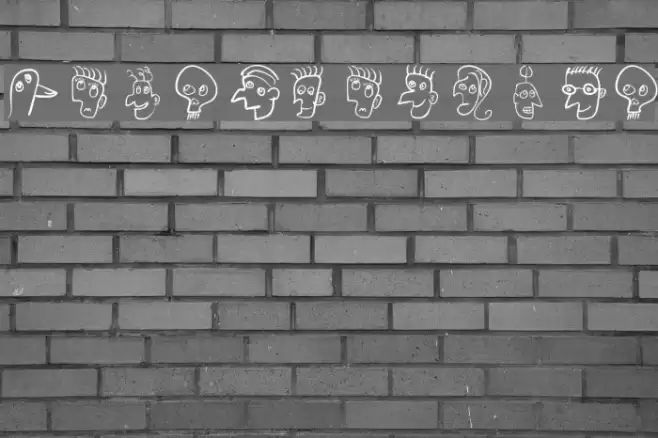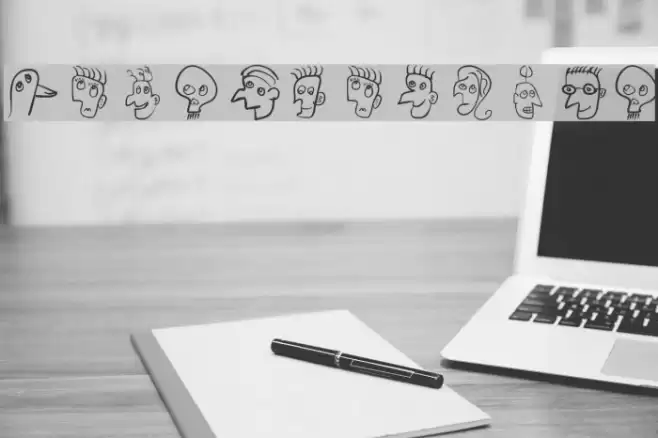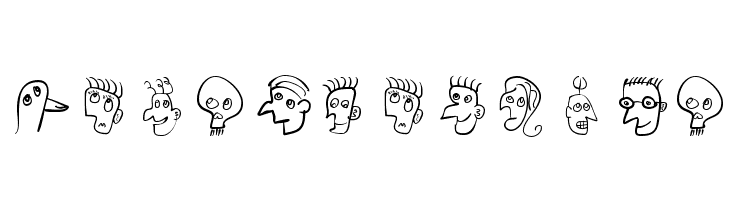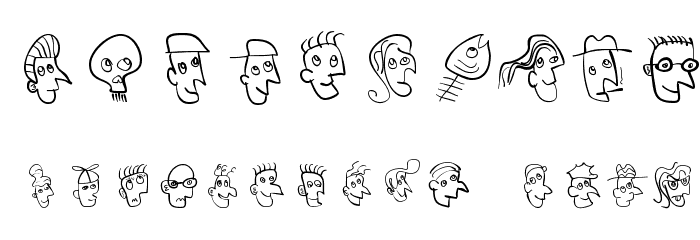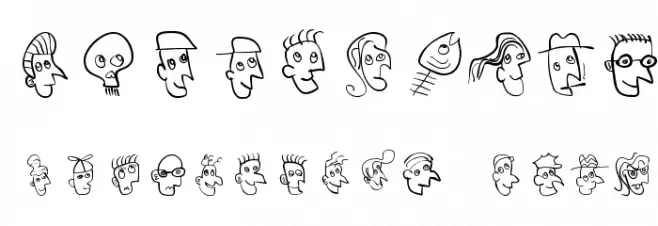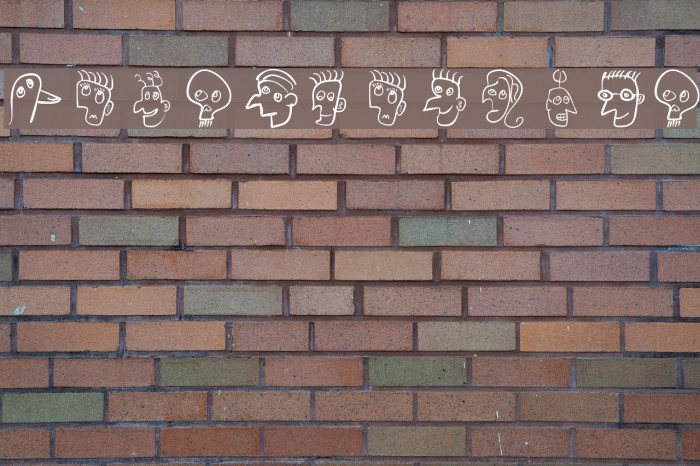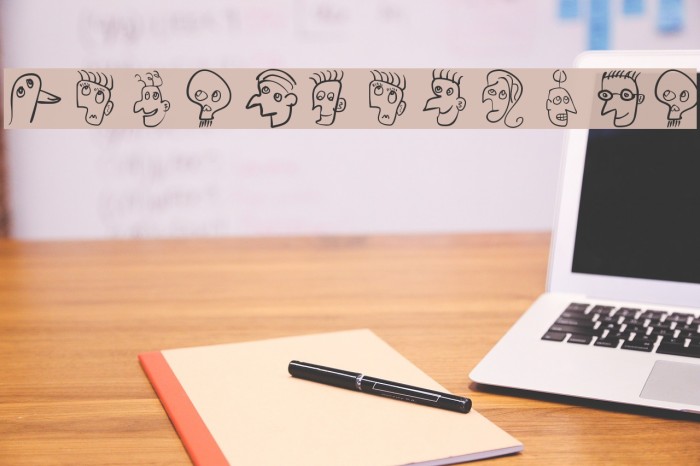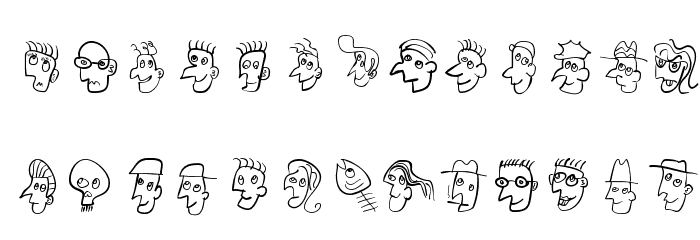
WacoheadsTwo Font
WacoheadsTwo Description
A whimsical, hand-drawn display font featuring unique cartoonish faces in place of standard alphanumeric and symbol characters, each glyph rendered with playful, irregular linework and expressive, exaggerated features.
Playful hand-drawn font with cartoon faces as characters from Uncategorized fonts.
- Proposed Projects: Children’s books, party invitations, comic strips, posters, creative branding, educational materials.
- Overall Style: Whimsical, Playful, Artistic
- Use Case: Logos, Posters, Headlines, Creative projects